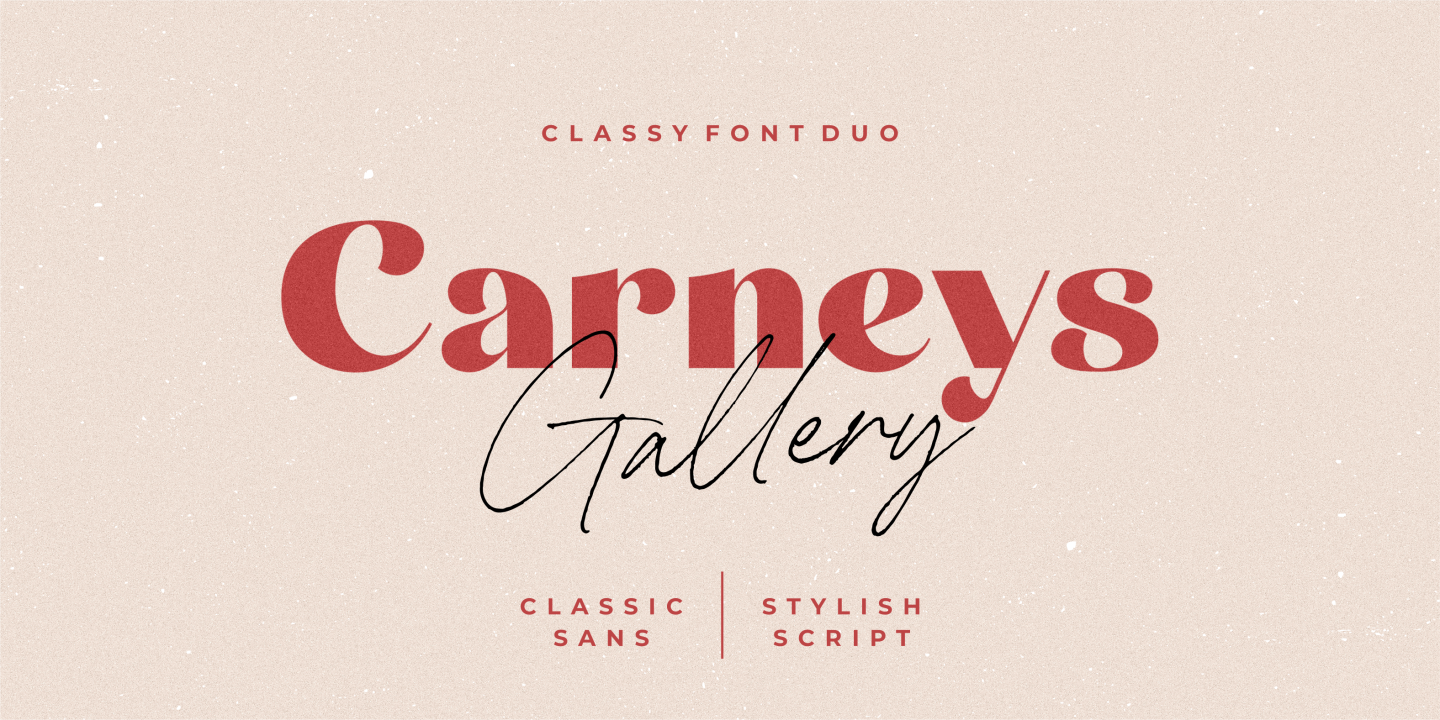
The Carneys Gallery Font Free Download is a wonderfully artistic and distinctive typeface, making it an excellent choice for designs that aim to convey creative flair, sophisticated artistry, and a unique, curated aesthetic. This captivating font is perfectly suited for art gallery branding, museum exhibition collateral, high-end photography portfolios, boutique design studio websites, cultural event invitations, and premium product packaging. Imagine it gracing the title of a limited-edition art book, providing the elegant typography for a contemporary sculpture display, or lending an air of exclusive refinement to a handcrafted luxury item. Its unique forms, often with subtle hand-drawn qualities or artistic imperfections, ensure your message is delivered with undeniable character and an unforgettable visual presence.
What makes Carneys Gallery Font truly exciting is its ability to instantly infuse designs with a sense of genuine creativity and a deep appreciation for artistic expression. It's not just a decorative font; it embodies an organic flow and a distinct, powerful personality that makes it incredibly compelling. The visible nuances in its strokes and its often slightly unconventional letter shapes give it an authentic, bespoke feel, as if carefully crafted by an artist's hand. Designers will appreciate how it immediately adds an artistic, high-concept quality to any project, making it ideal for designs that need to feel original, handcrafted, and visually striking.
The Carneys Gallery Font family typically focuses on its singular, impactful display style, as its strength lies in its inherent artistic and unique appearance. While you might primarily find a Regular option, its power comes from its unique visual effect rather than a broad range of weights. Some versions might offer unique ligatures, alternative characters, or subtle textural variations that further enhance its handcrafted, artistic appearance, allowing for variations in its expressive charm. These focused design features ensure that the Carneys Gallery Font Free Download provides ample creative opportunities to craft truly original, dynamic, and visually captivating designs that resonate with a powerful, artistic spirit.